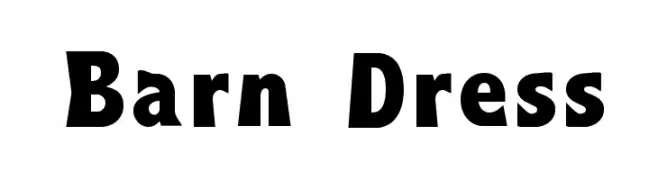
A bold, condensed typeface with thick, uniform strokes and minimal spacing.
Intricately detailed idol heads with elaborate headdresses in a decorative style.
A bold, classic serif font with high contrast and elegant details.
A high-contrast serif font with elegant, sharp serifs and a classic style.
A gritty, distressed font with a rugged, textured appearance.
A playful, hand-drawn font with whimsical stick figure illustrations integrated into the letters.
Illustrative angel characters in global attire, not a traditional font.
A whimsical, cartoon-style decorative font with Renaissance-themed characters.
A collection of vintage American-themed symbols and illustrations.
Whimsical display font using doll silhouettes as characters.
A bold, decorative pictogram set inspired by Native American iconography.
A whimsical collection of playful and enchanting dingbats featuring princess-themed symbols.
A decorative font with festive, mask-like embellishments on each letter.
A whimsical decorative font with illustrated characters accompanying each letter.
A whimsical font with festive characters integrated into each letter.
A playful font with bold, tilted letters and charming illustrations.
A playful, decorative font featuring cartoon reindeer alongside each letter.
Ornamental font featuring diverse hairstyle silhouettes.
A chic and playful set of fashion-themed icons and words in a whimsical, handwritten style.